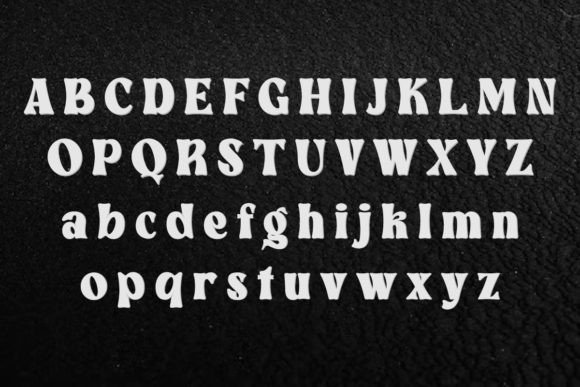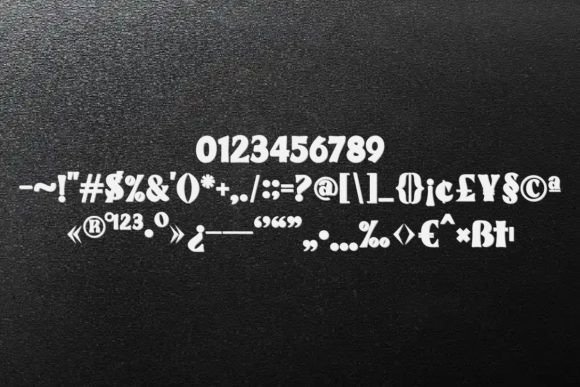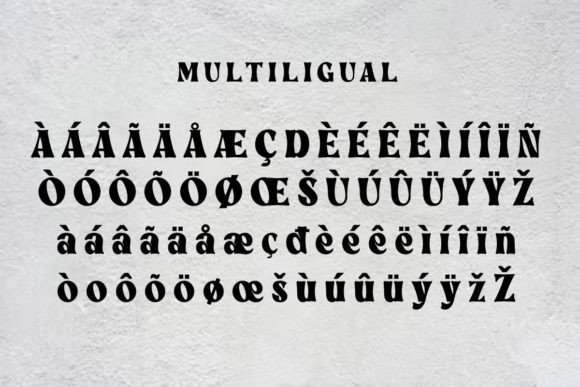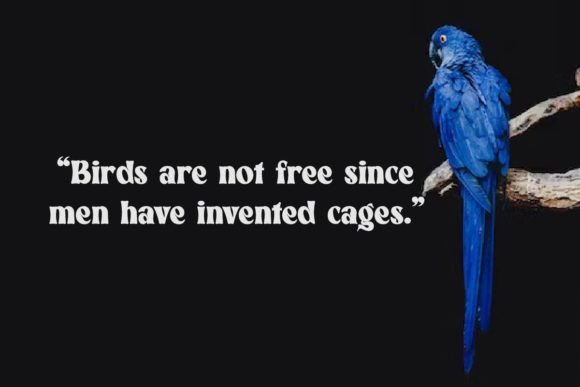
Introducing Ballong Font: The Fun and Modern Serif Font for Creative Projects
Are you a designer, crafter, or social media enthusiast looking for a unique and versatile font to elevate your creative projects? Look no further than Ballong Font! This fun and modern serif font is perfect for a wide range of applications, from traditional media and web design to graphic arts, crafts, and social media. In this article, we’ll explore the features and benefits of Ballong Font, and show you how it can take your designs to the next level.
What is Ballong Font?
Ballong Font is a modern serif font that combines classic elegance with a playful twist. Its unique design makes it stand out from more traditional serif fonts, while its versatility ensures it can be used in a variety of contexts. Whether you’re creating a poster, social media graphic, or crafting a logo, Ballong Font is the perfect choice.
Key Features of Ballong Font
- Fun and Modern Design: Ballong Font boasts a fresh and contemporary design that’s sure to grab attention. Its serif details add a touch of sophistication, making it perfect for projects that require a bit of whimsy and flair.
- Wide Range of Applications: From traditional media and web design to graphic arts, crafts, and social media, Ballong Font is the perfect choice for any project that requires a modern and eye-catching font.
Why Choose Ballong Font?
So why should you choose Ballong Font for your next project? Here are just a few reasons:
- Unique and Memorable: Ballong Font’s unique design ensures your project will stand out from the crowd. Its modern serif style is both memorable and engaging, making it perfect for projects that require a bit of personality.
- Easily Readable: Despite its playful design, Ballong Font is highly readable, even at smaller sizes. This makes it perfect for body text, headlines, and titles.
- Pair it with Other Fonts: Ballong Font pairs well with a range of other fonts, from modern sans-serifs to traditional script fonts. Experiment with different combinations to find the perfect look for your project.
- Experiment with Colors and Textures: Ballong Font looks great in a range of colors and textures. Try adding a pop of color or texture to give your project a bit of extra flair.
- Use it for Headlines and Titles: Ballong Font’s unique design makes it perfect for headlines and titles. Use it to add a bit of personality to your project and draw attention to key information.
Ballong Font is a fun and modern serif font that’s perfect for designers, crafters, and social media enthusiasts. Its unique design, versatility, and readability make it the perfect choice for a wide range of projects, from traditional media and web design to graphic arts, crafts, and social media. With its compatibility with popular design tools like Photoshop and Silhouette, Ballong Font is easy to incorporate into your existing workflow. So why not give it a try and see how it can elevate your designs?